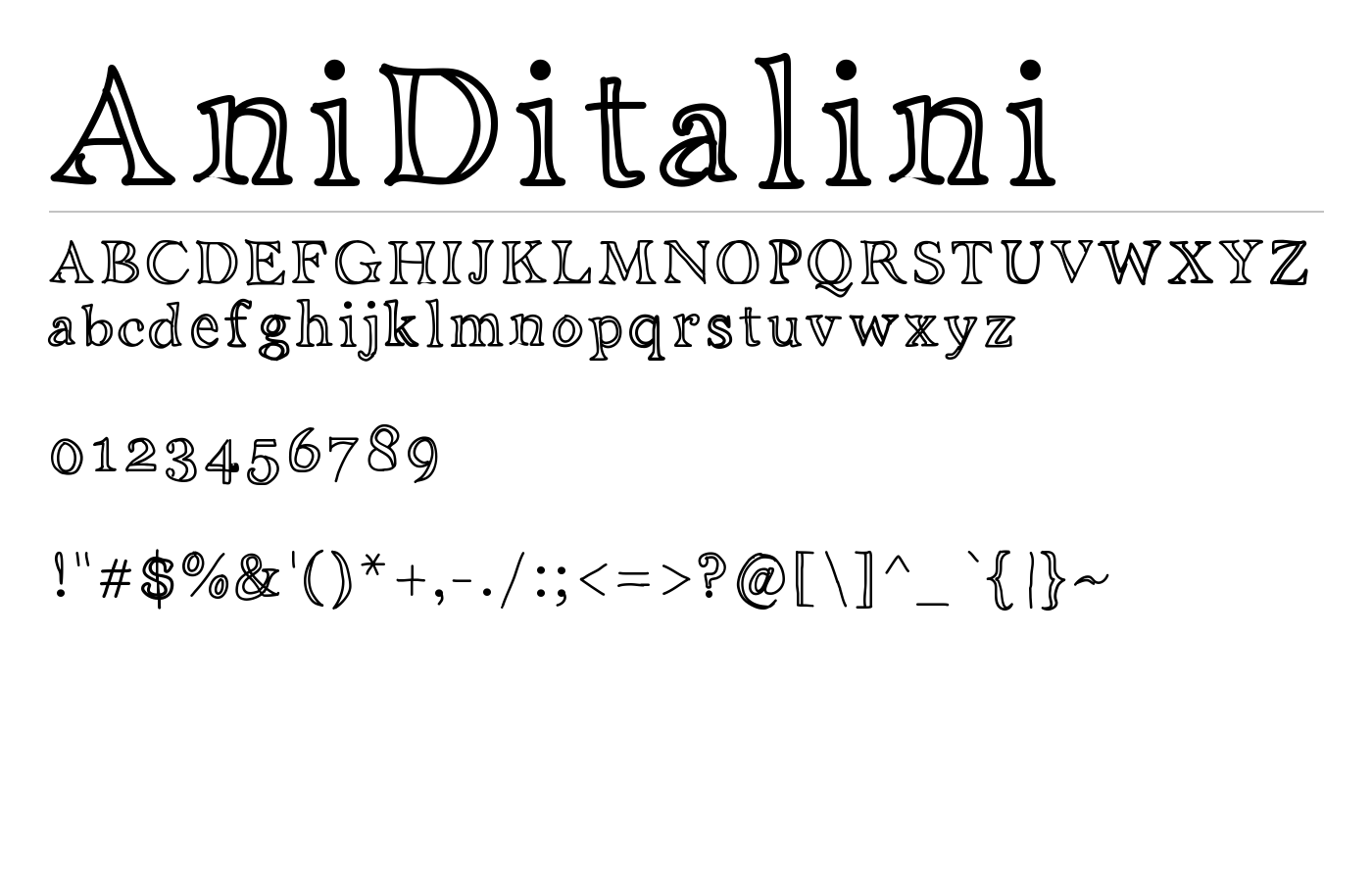
AniDitalini is a quirky serif font with a playful, hand-drawn feel that combines uneven stroke widths and whimsical serifs. Its casual, slightly irregular letterforms make it perfect for creative, informal designs, adding charm and personality to logos, posters, and packaging aimed at a fun, artistic audience. This font works best in display settings where its distinctive style can stand out and engage viewers with a friendly, approachable tone.
AniDitalini Font
About AniDitalini Font